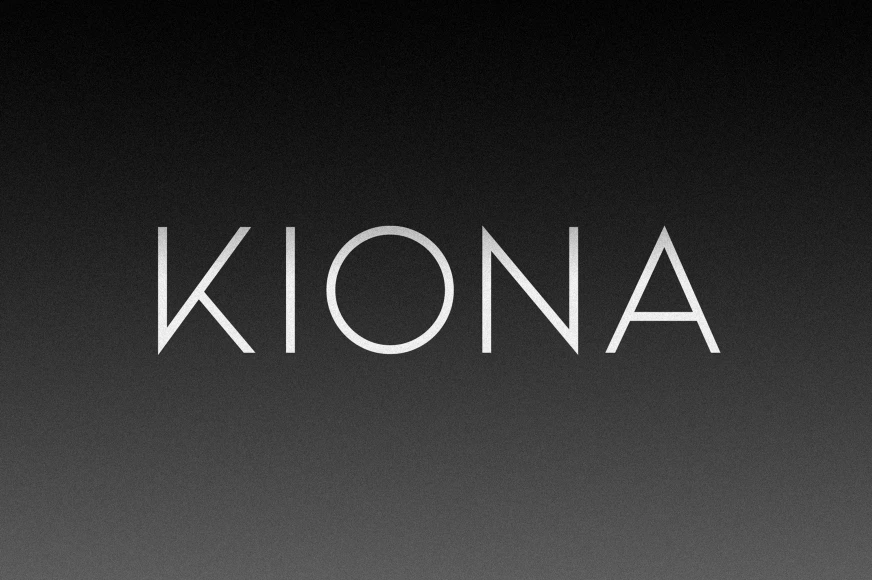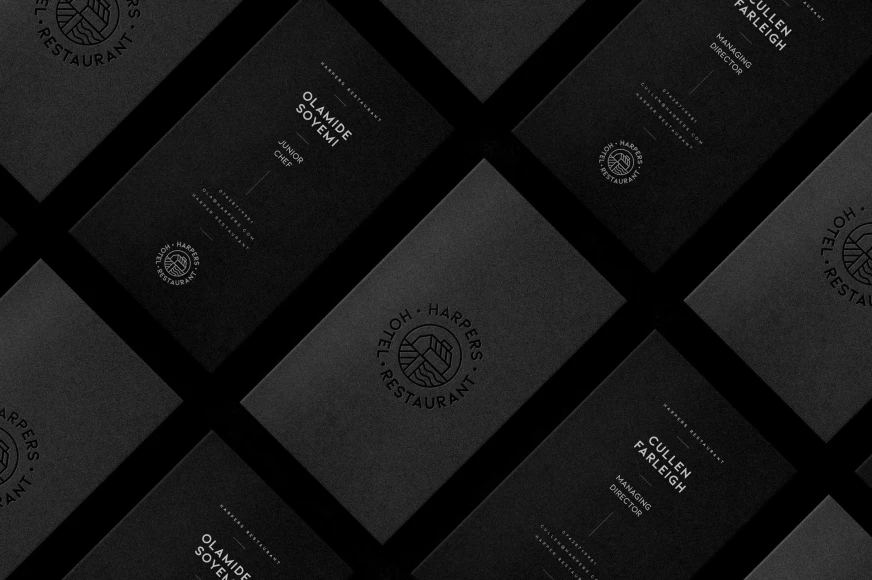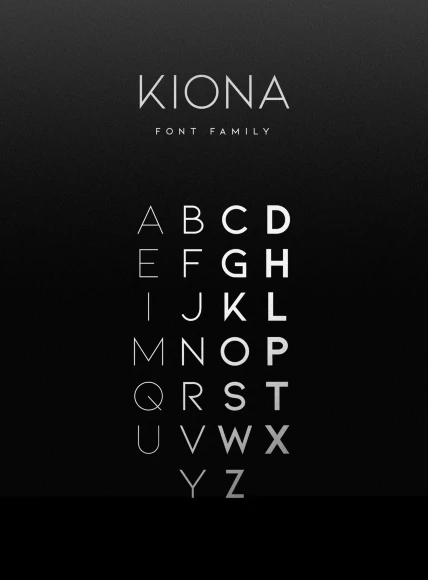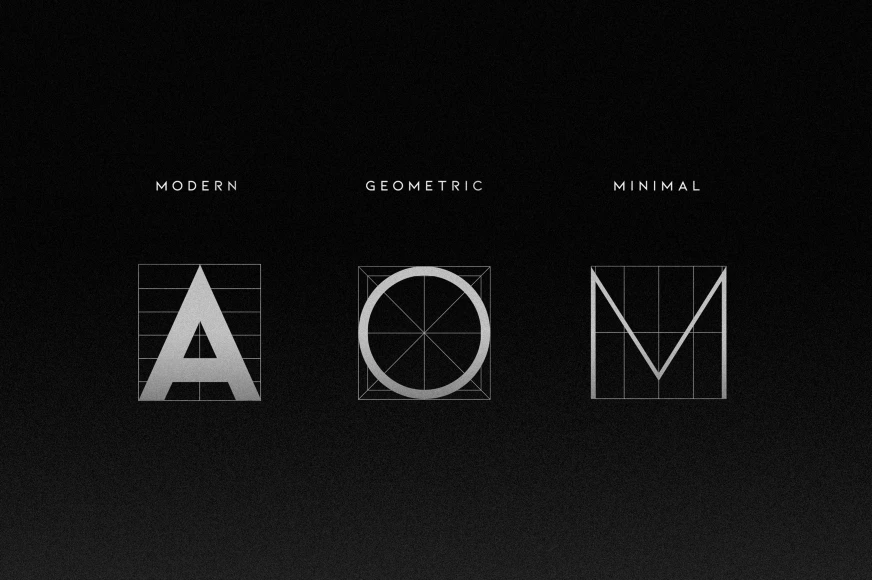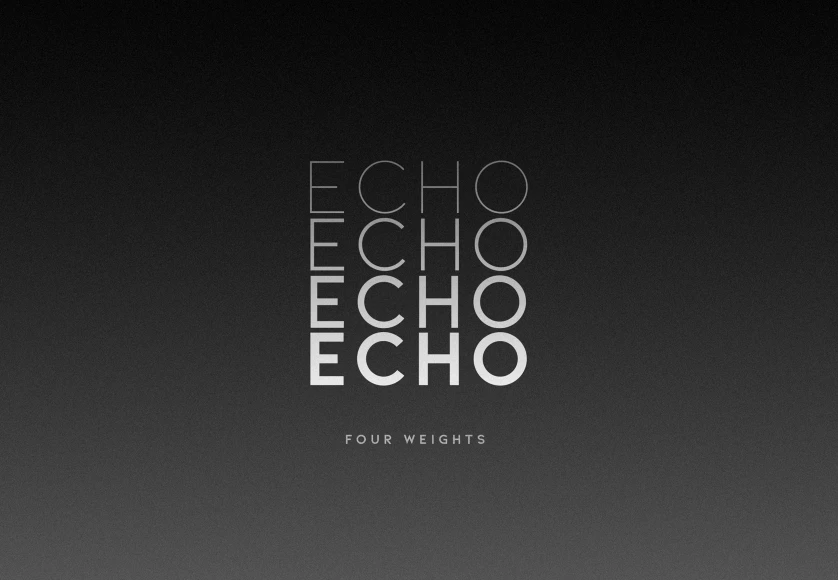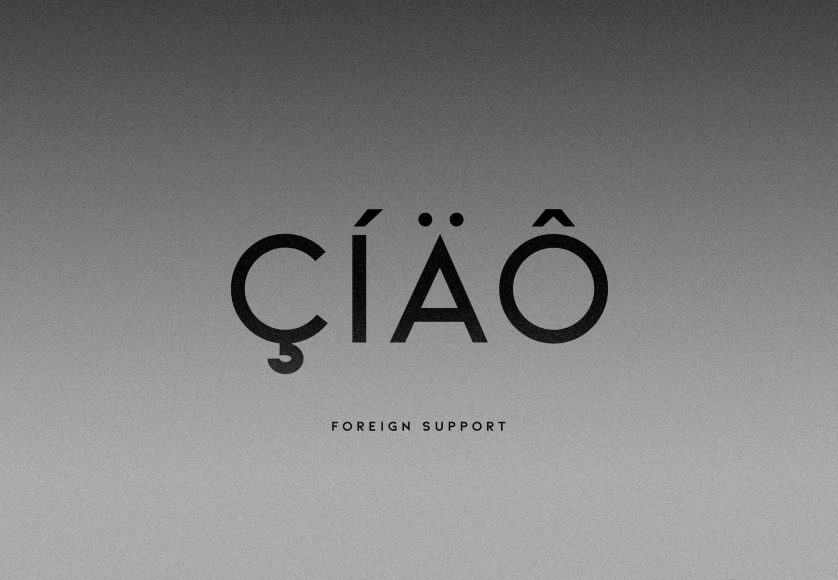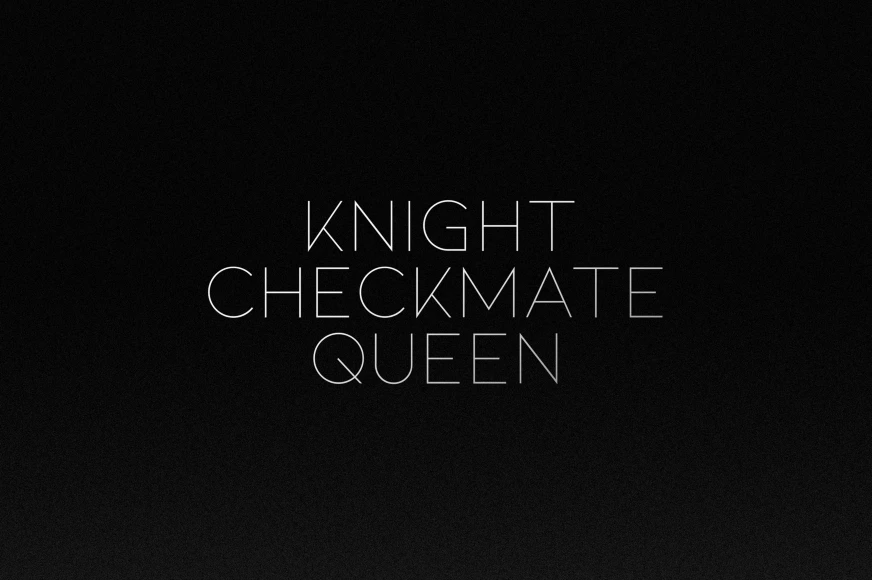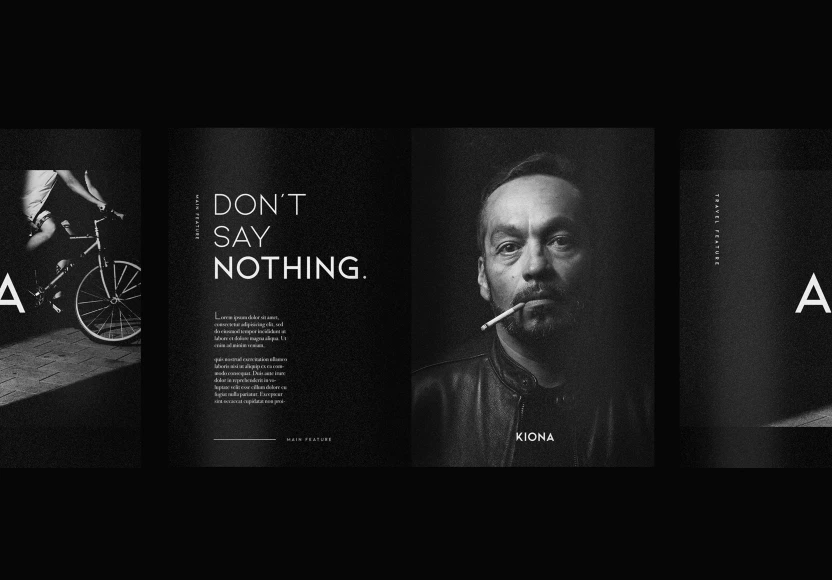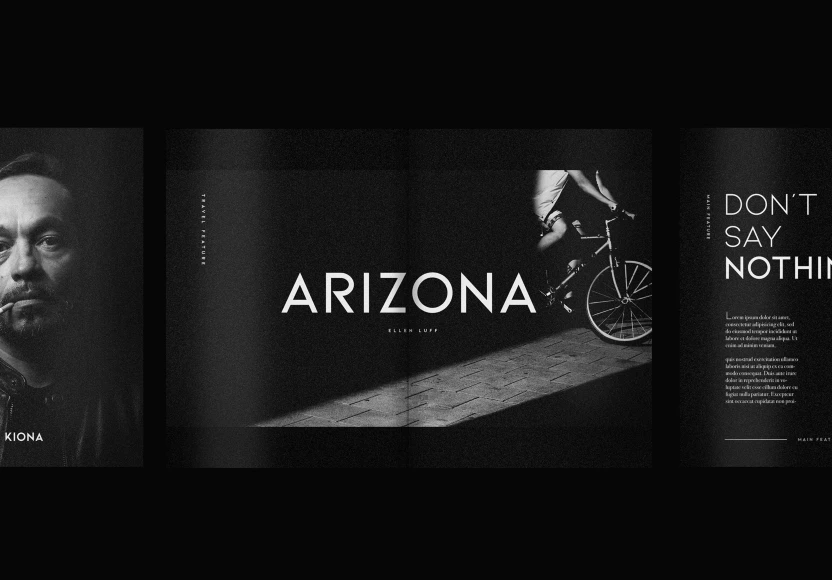
KIONA, from Ellen Luff Type Foundry, is a simple yet striking all-caps sans serif. Defined by crisp edges and modern touches, it’s crafted for optimal legibility. Four weights, each with a distinct personality, offering something for every design. A strong and edgy Bold, a delicate and elite Light, while Regular and Semibold strike the perfect balance between the two. Italics and extensive language support add even more versatility, making KIONA as dynamic as it is stylish. Make a statement without making a scene!